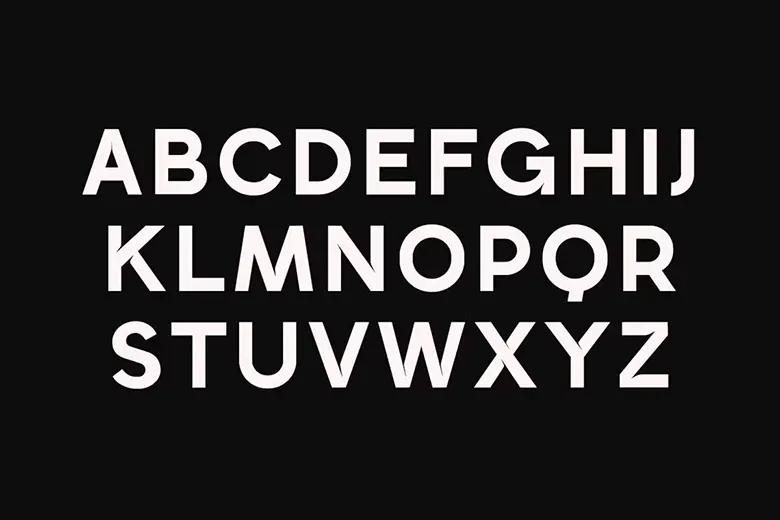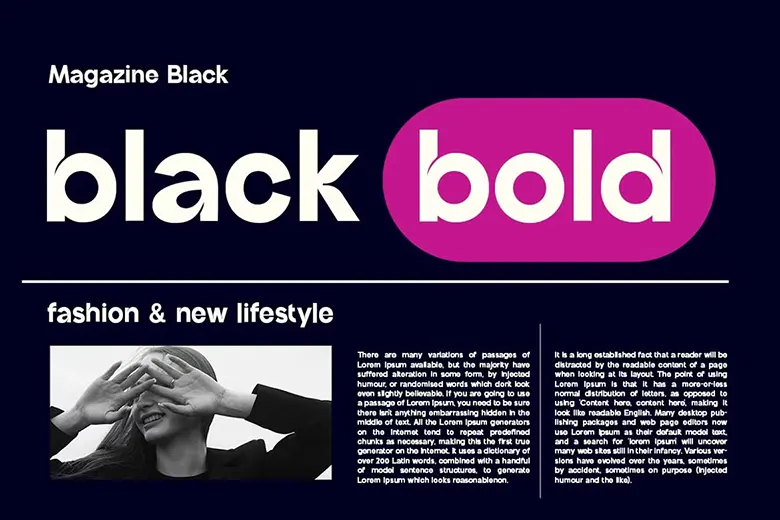
Stanzegic Modern Grotesk Font is a sleek and stylish typeface designed for versatility. It’s perfect for logos, branding, stationery, weddings, book covers, website headers, and fashion designs. With a balance of bold and elegant elements, it works well for both masculine and feminine aesthetics.
Stanzegic Modern Grotesk Font